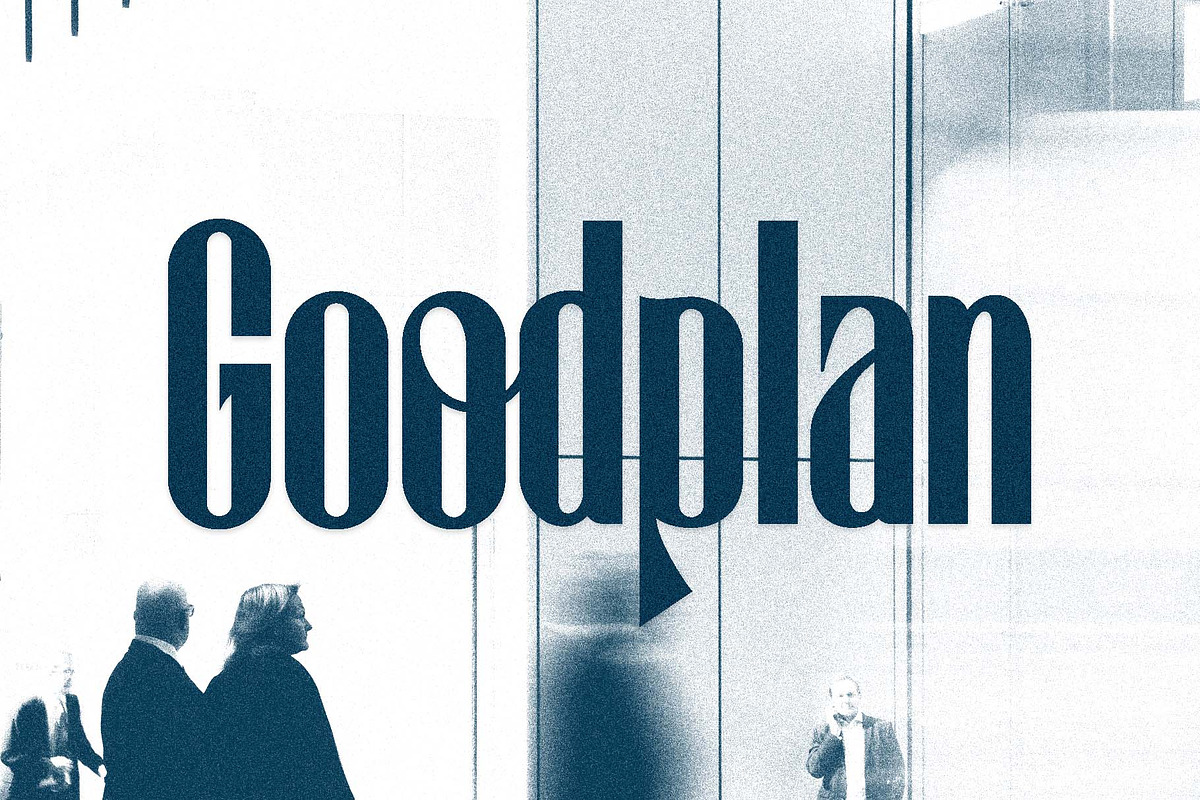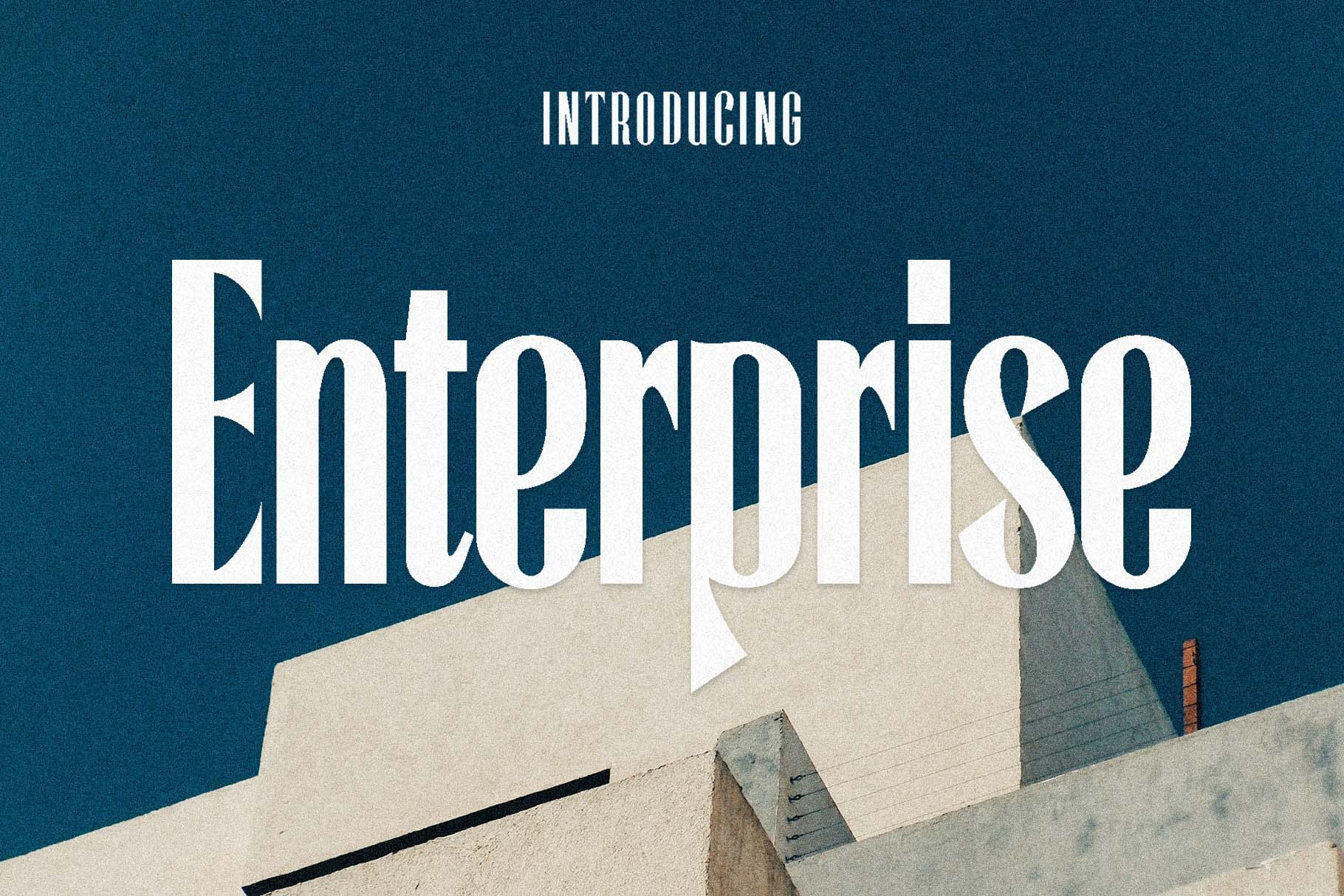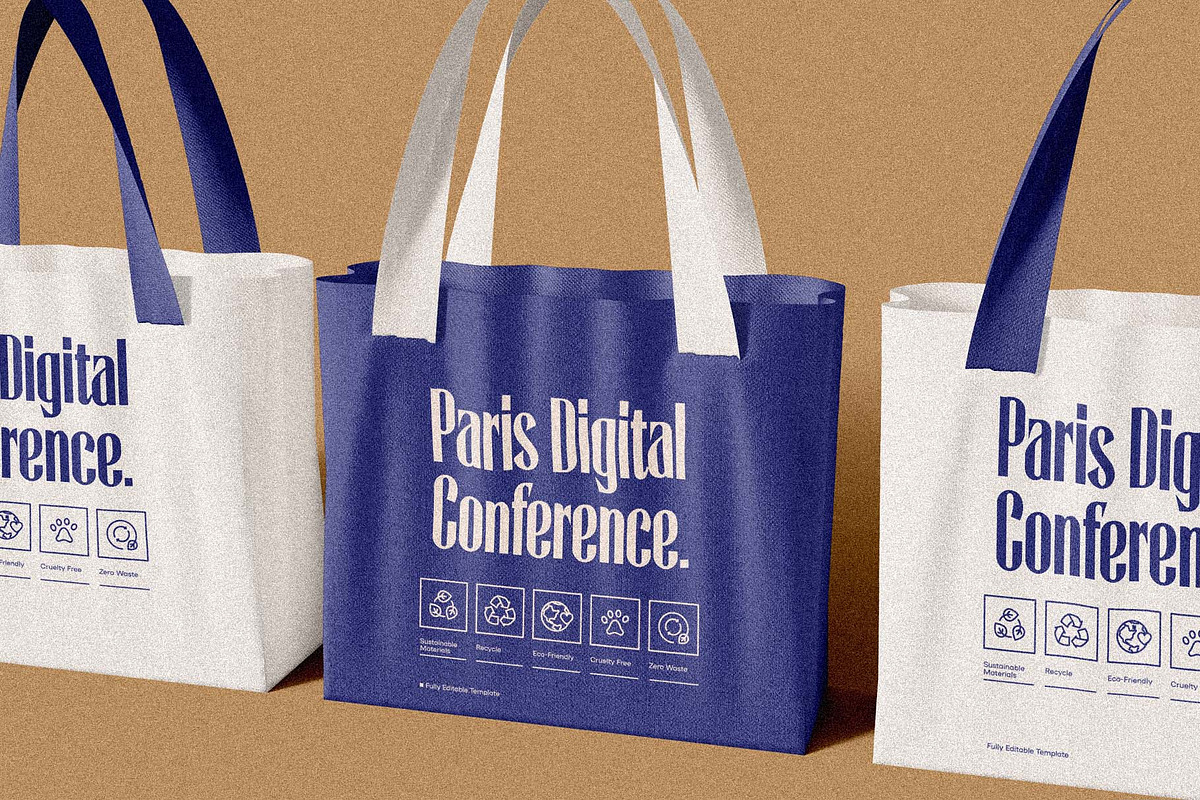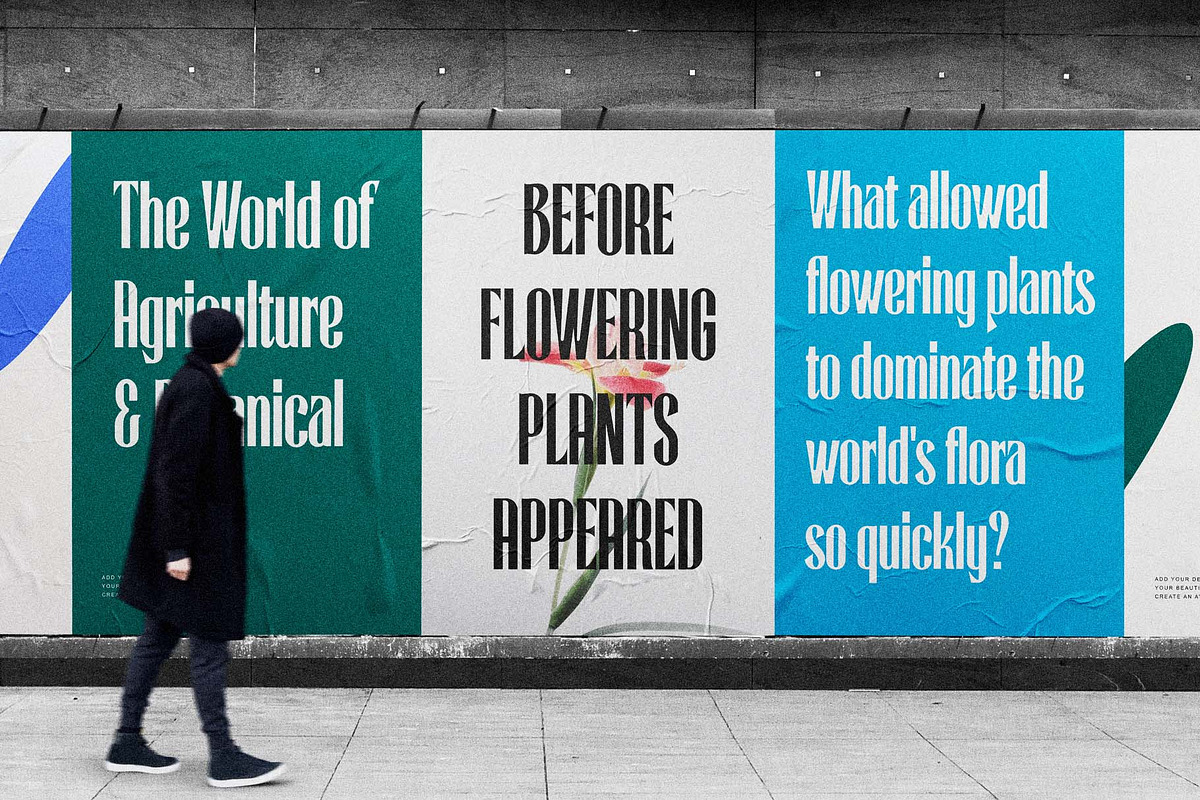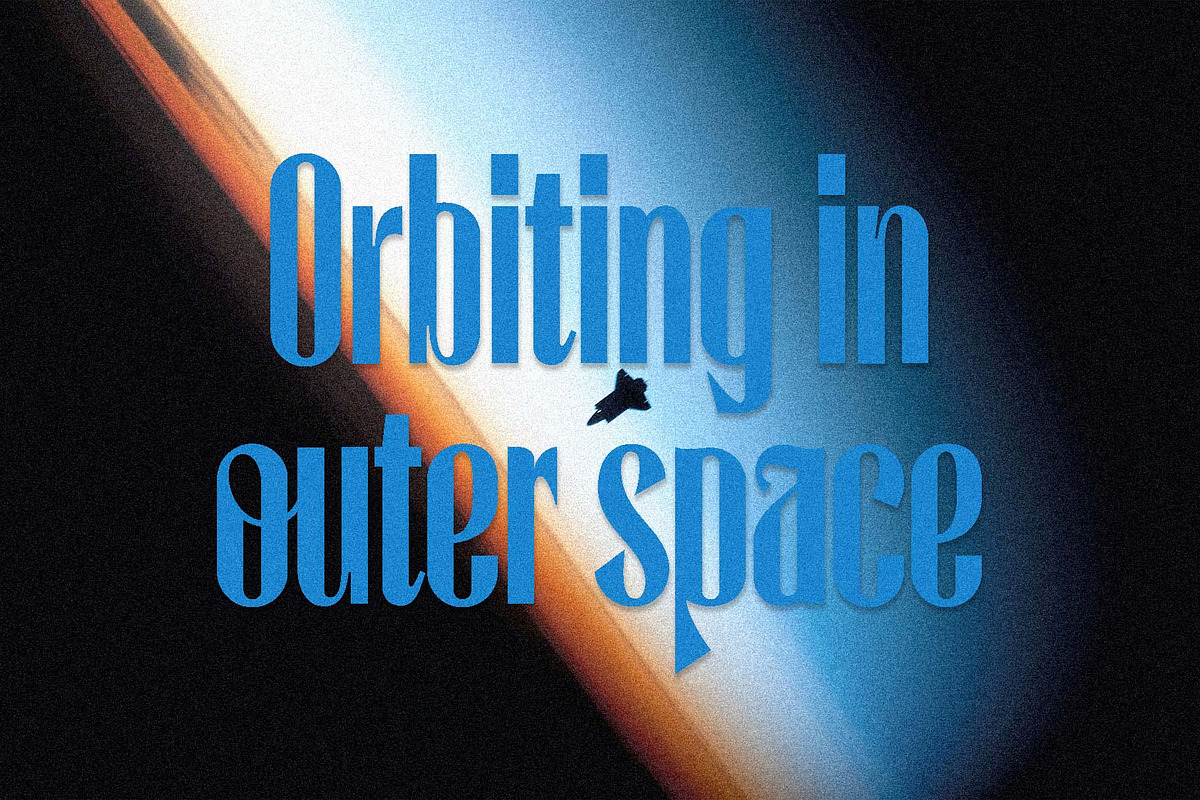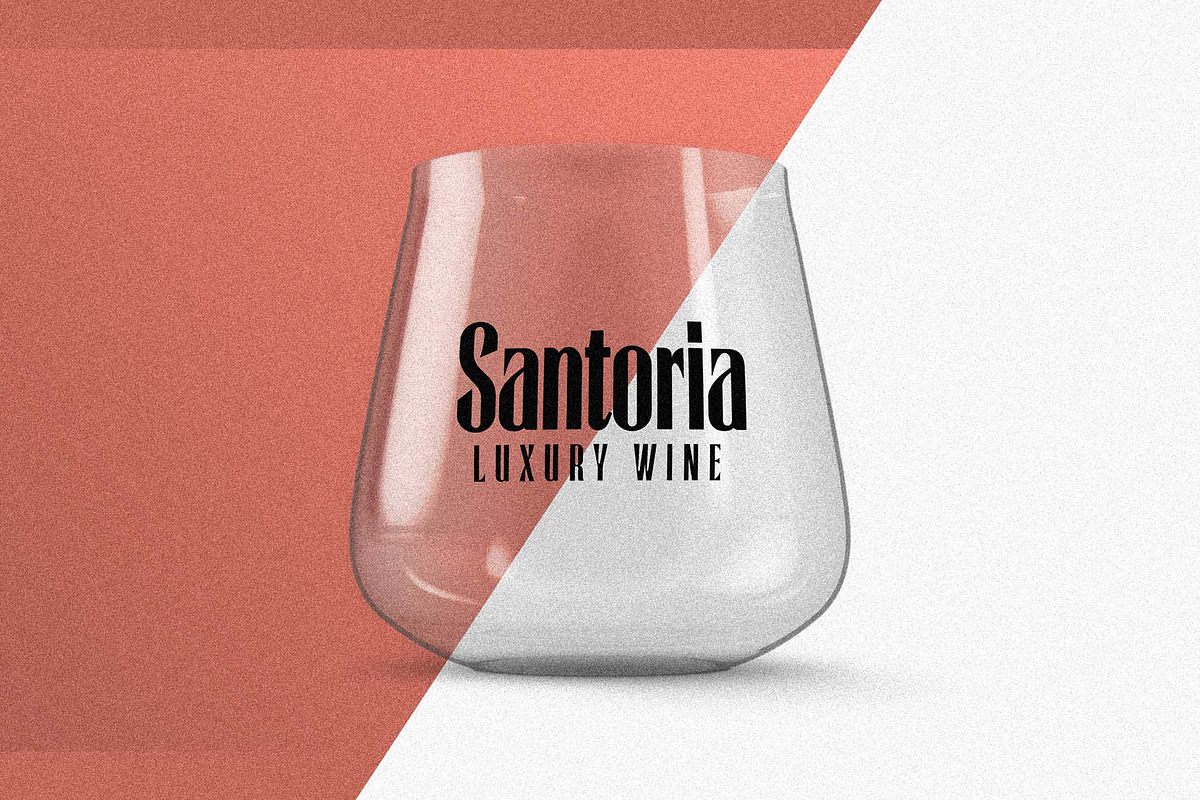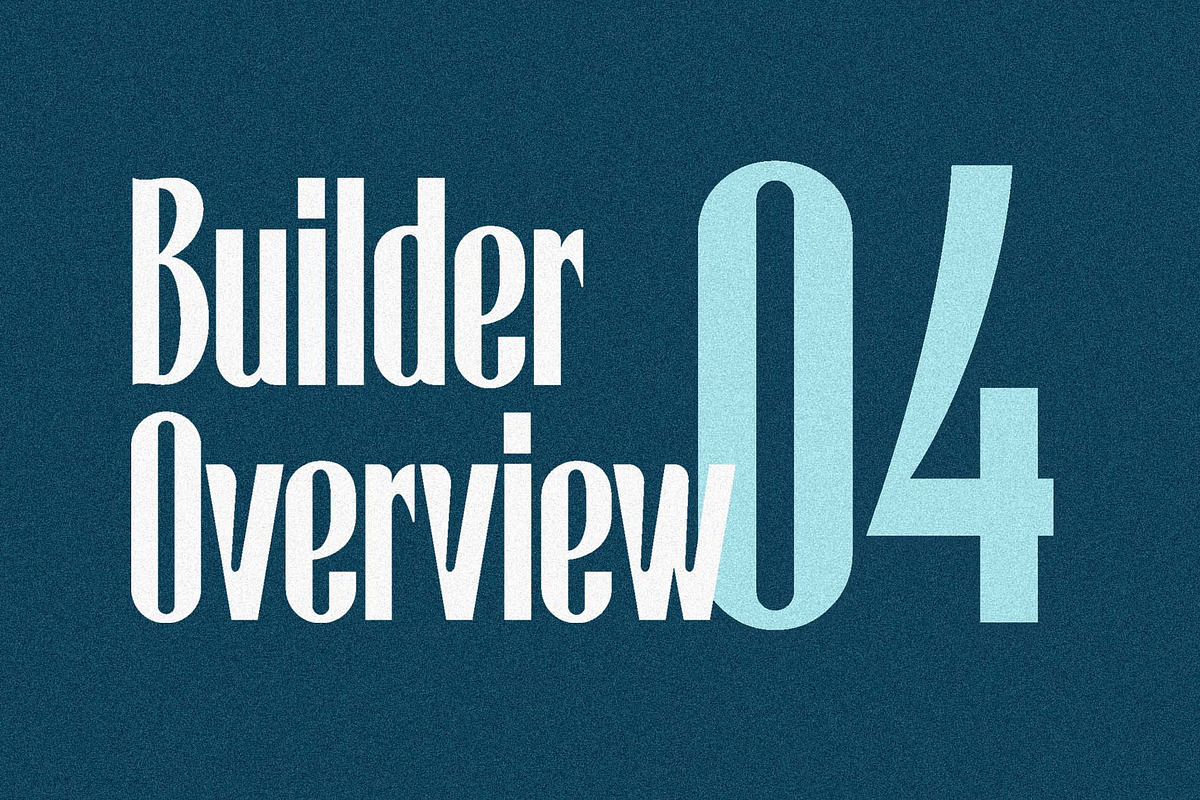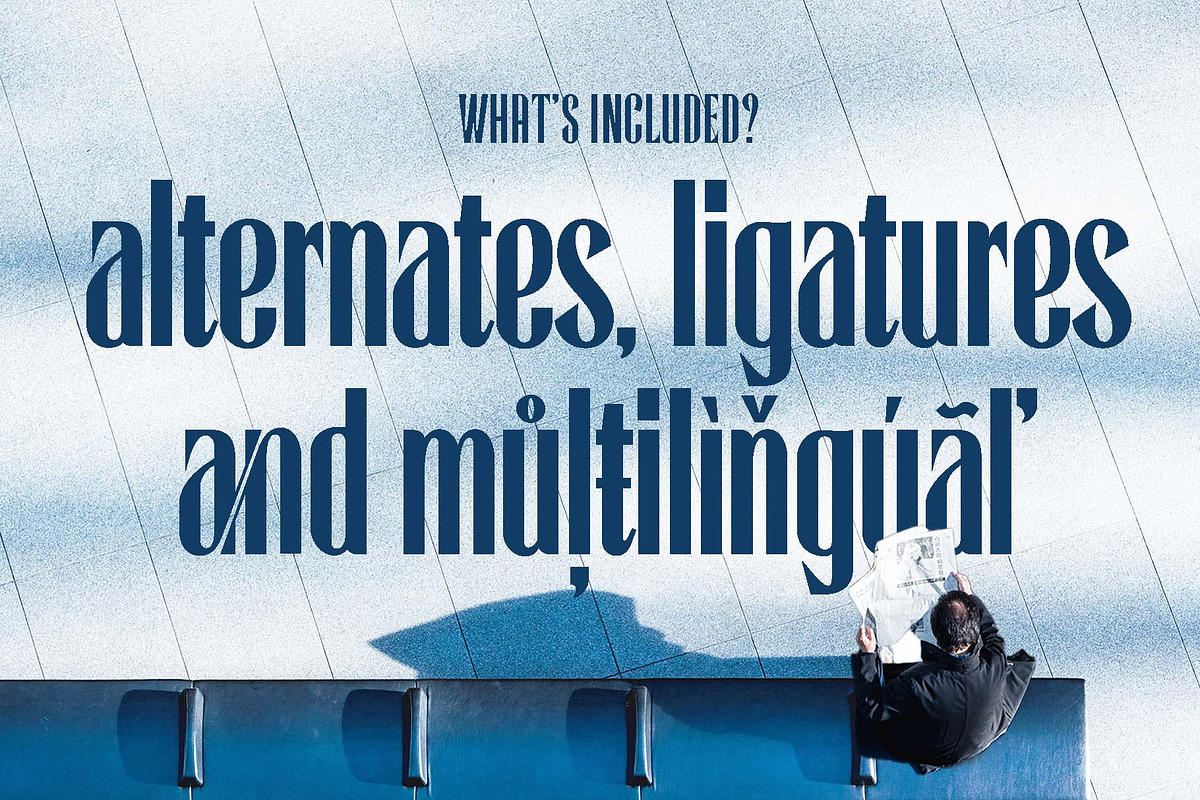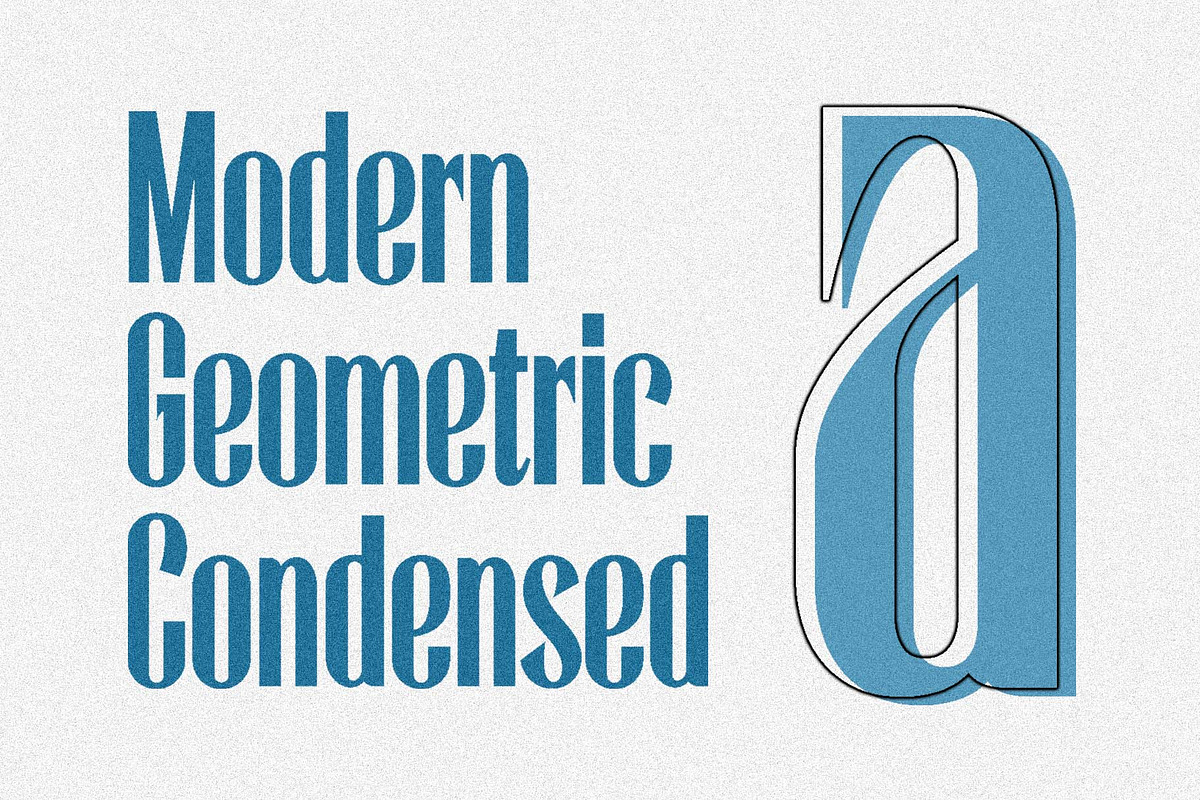
Enterprise Typeface | Early Bird 50%
Say hello to Enterprise Typeface! A strong, tall and handsome display fonts offer a classic, modern look for any project. The tall and slender letterforms are designed to help you stand out from the crowd and create a bold statement.
This Enterprise fonts are great for titles, headlines, logos also perfect for websites, magazines, printed materials and branding. This display fonts are easy to read on digital devices, making them a great choice for social media post or web design projects.